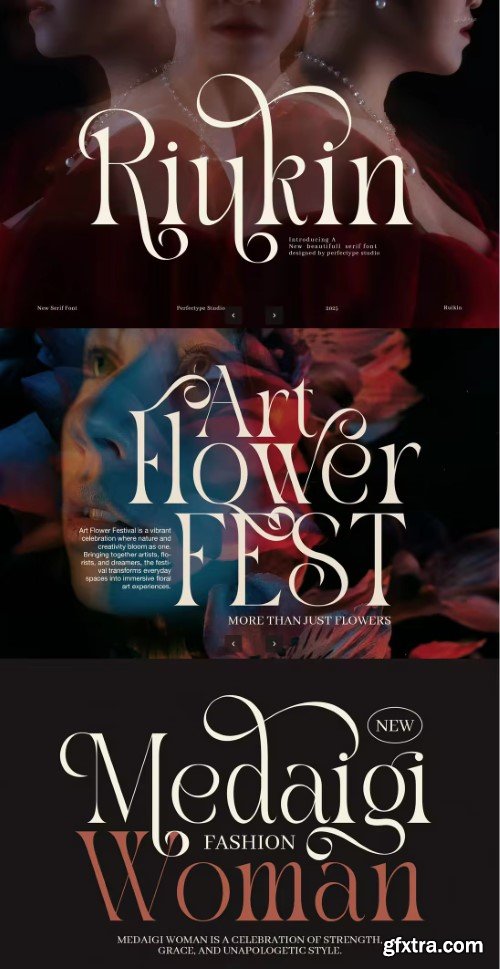
Creativemarket - Riukin Elegant Serif Font
- Riukin is an elegant serif font that brings together classic charm and modern style. Because of this, it works well for many creative projects. Whether you are designing branding, editorial layouts, wedding invitations, or packaging, Riukin adds a polished and professional look. In addition, it balances sophistication with readability, making your designs stand out. This font features clean lines and smooth curves. Therefore, it creates a strong and clear presence without being too bold. Moreover, Riukin is versatile enough to be used in large headlines as well as smaller body text. Also, it includes special ligatures and alternate styles that add extra flair to your typography.